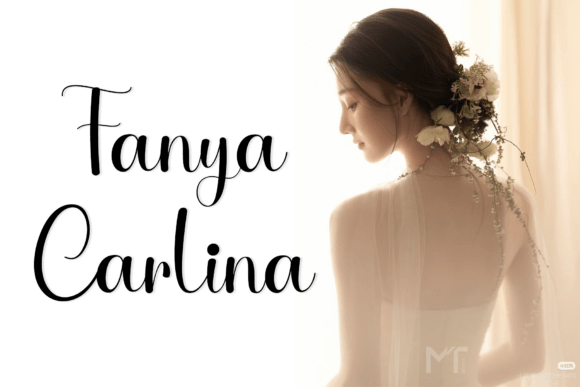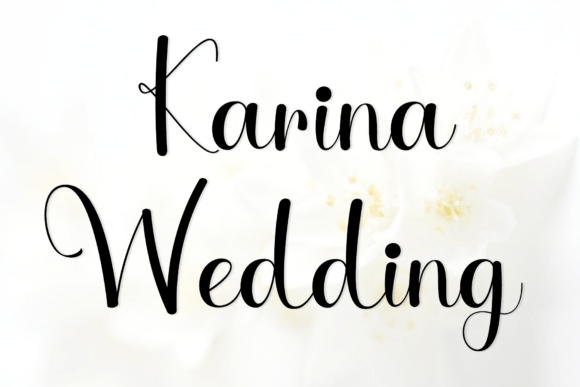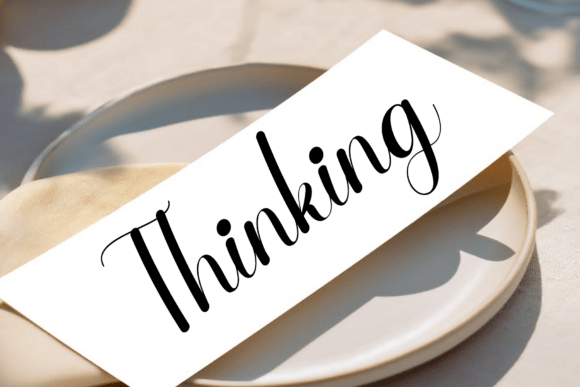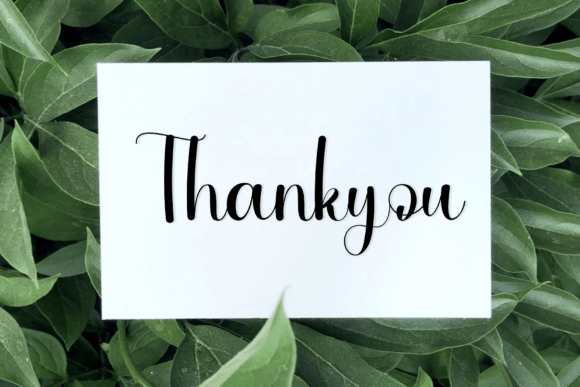
The Art of Elegant Expression: Unlocking the Power of Calligraphy Font
Remember the moment when you first saw a beautifully crafted logo or packaging design that stopped you in your tracks? The intricate details, the perfect balance of form and function, the sense of sophistication that lingered long after you looked away? That’s the magic of calligraphy, and it’s precisely what the Calligraphy Font embodies.
As a sophisticated and rhythmic script font, Calligraphy Font is designed to evoke a sense of artisanal artistry and customized elegance. Its sweeping, looping ascenders create a unique visual experience that sets it apart from more generic fonts. For designers, Calligraphy Font is a valuable tool for adding a touch of refinement to upscale branding, packaging, and marketing materials.
Key Features of Calligraphy Font
- Unique Characteristics: Hand-drawn, cursive, and elegant design elements, including swashes, flourishes, and ligatures
Calligraphy Font Review
I recently had the chance to work with the Calligraphy Font, and I must say it’s a unique and elegant addition to any design project. ✨ One of the things I appreciate about this font is its versatility – it can be used for both formal and informal projects, making it a great all-around choice.
Another advantage of the Calligraphy Font is its legibility. ✨ Despite its decorative nature, the font is still easy to read, even at smaller font sizes. This makes it perfect for projects where you need to convey a lot of information in a limited amount of space.
Here are some of the things I like about the Calligraphy Font:
- ✨ Versatile design suitable for both formal and informal projects
- ✨ Easy to read, even at smaller font sizes
- ✨ Wide range of stylistic variations
However, I do have a few concerns about the Calligraphy Font:
- ⚠️ Limited character set, which can make it difficult to use for projects with a lot of text
- ⚠️ May not be suitable for projects where a clean, minimalist aesthetic is desired
Overall, I think the Calligraphy Font is a great choice for designers who want to add a touch of elegance and sophistication to their projects. With its versatility and legibility, it’s definitely worth considering for your next design project.